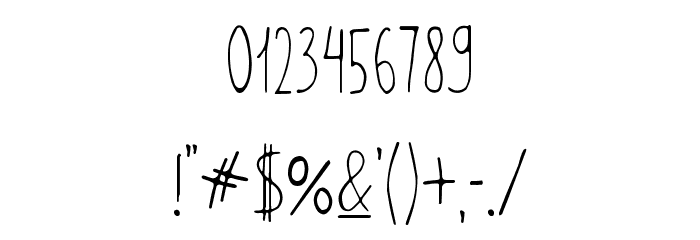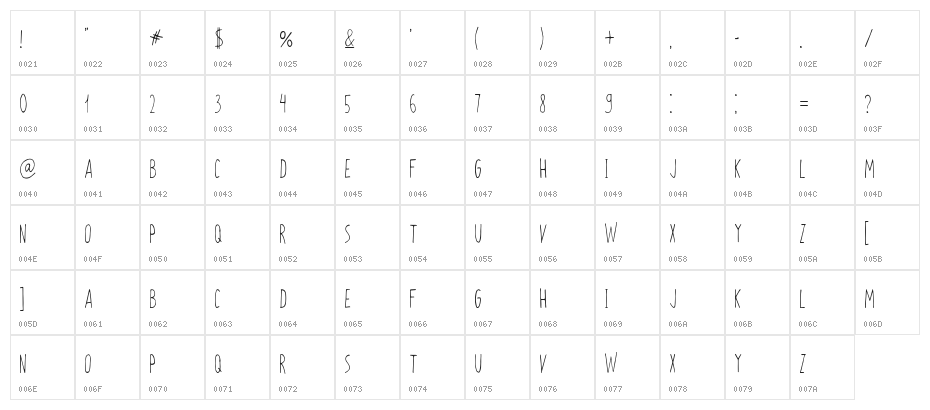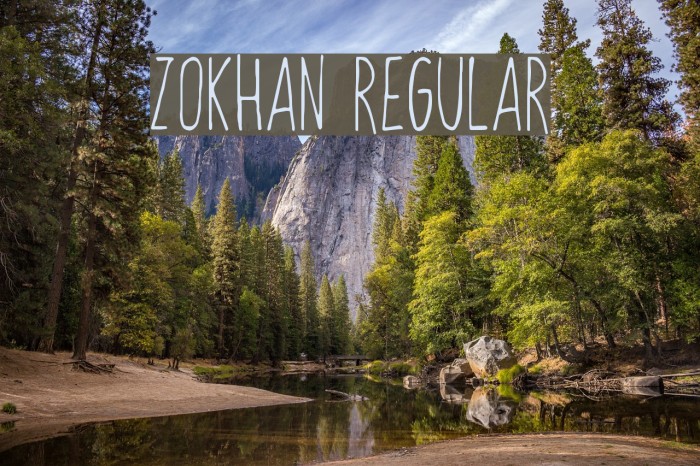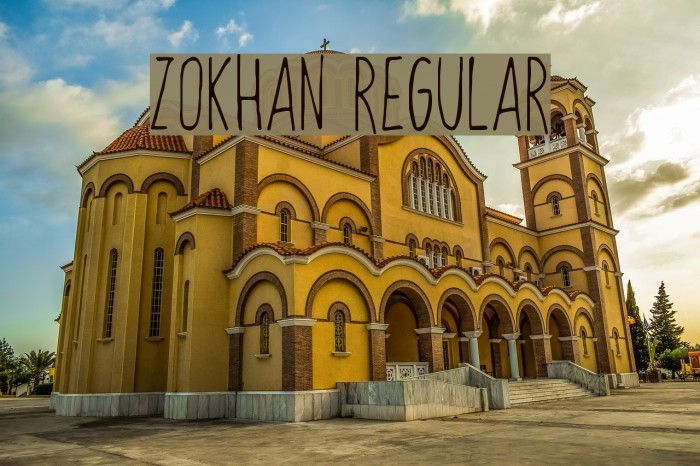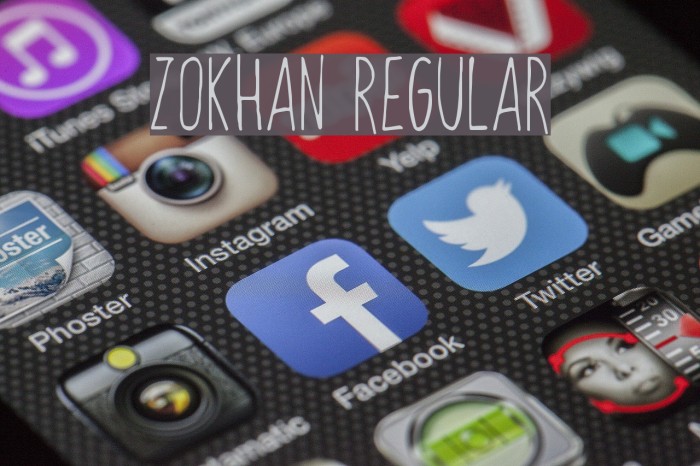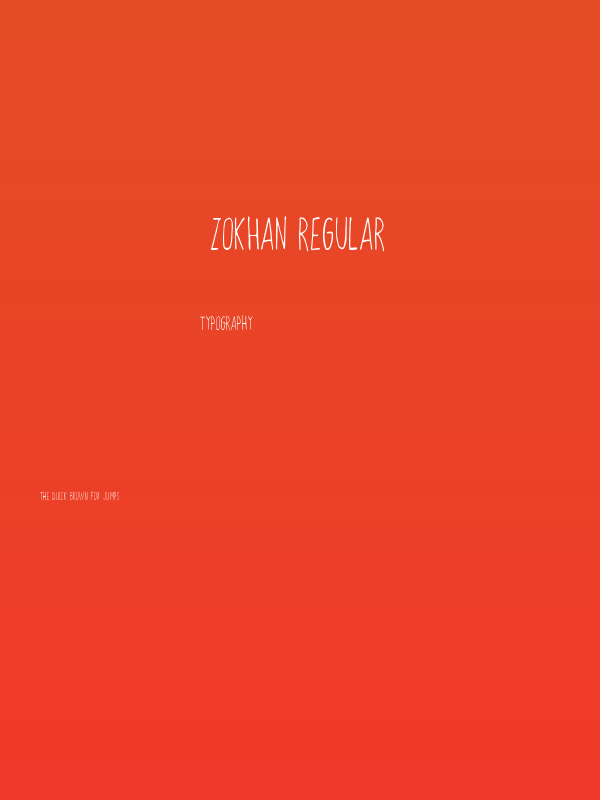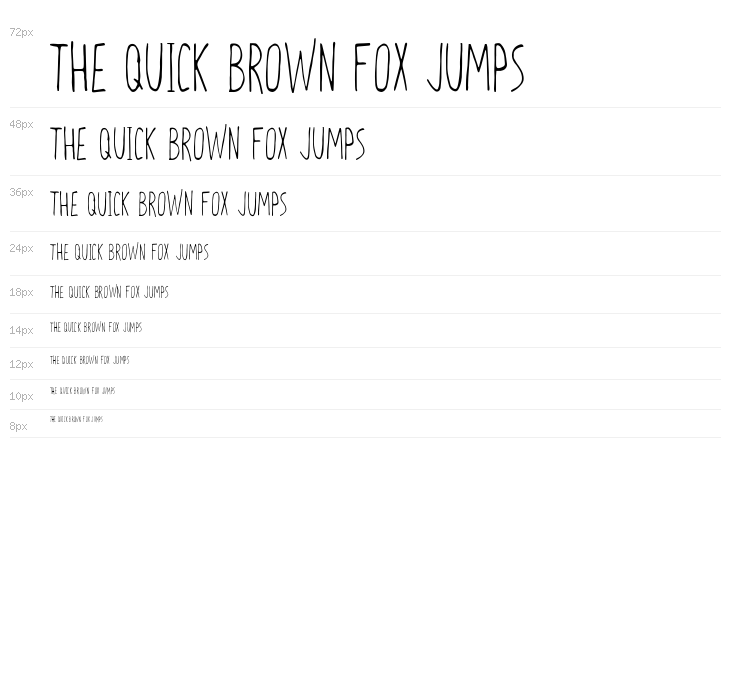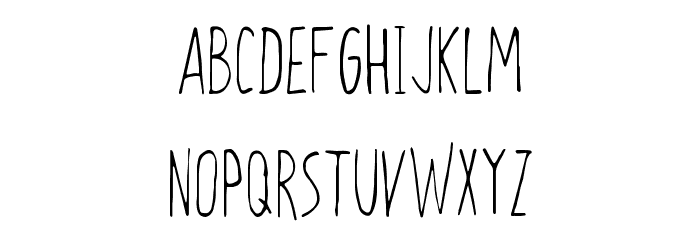
Zokhan Regular Font
Zokhan Regular Description
This font features a playful and whimsical design with tall, narrow characters. The strokes are uneven, giving it a hand-drawn appearance that adds a personal touch to any project. The uppercase and lowercase letters maintain a consistent style, with slightly exaggerated curves and angles that enhance its quirky charm. The numbers and special characters follow the same aesthetic, ensuring a cohesive look across all text elements. Its unique style makes it stand out, perfect for creative and informal applications.
| Proposed Projects | Ideal for children's books, greeting cards, playful branding, and creative posters. |